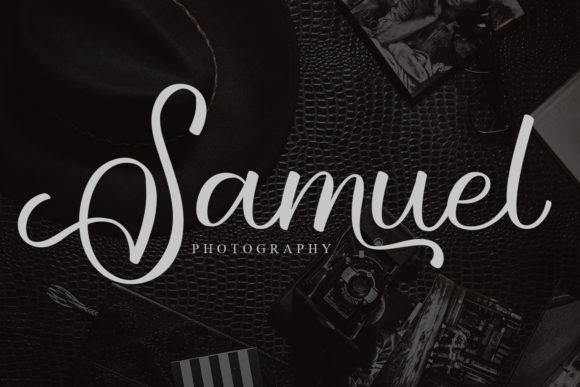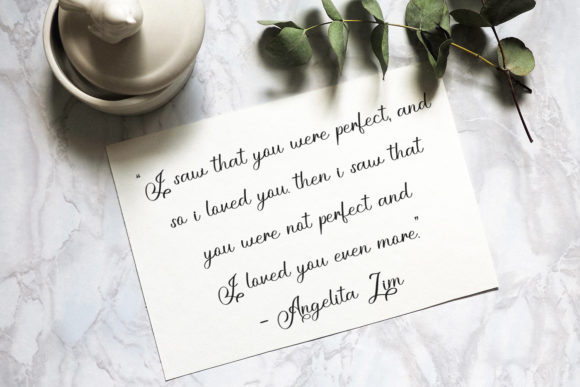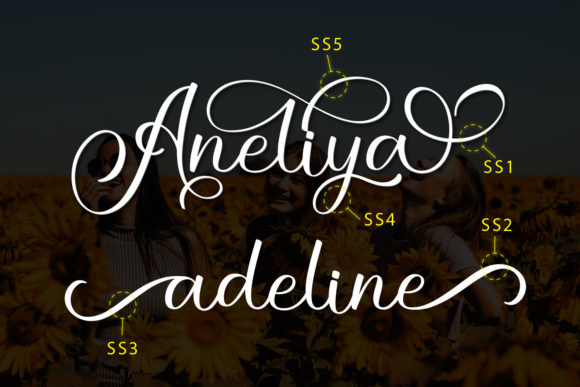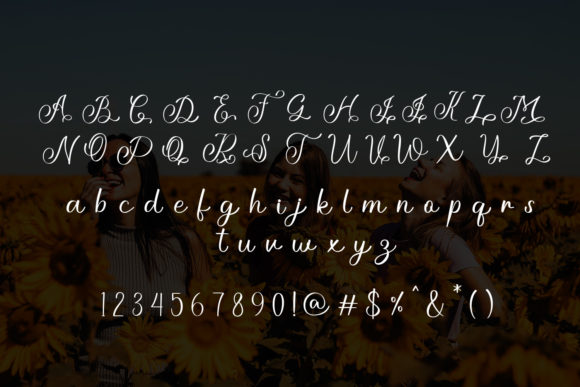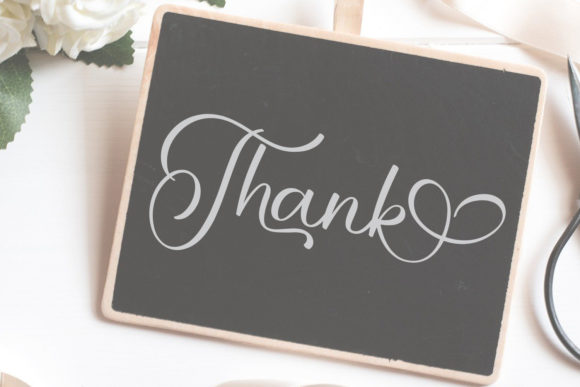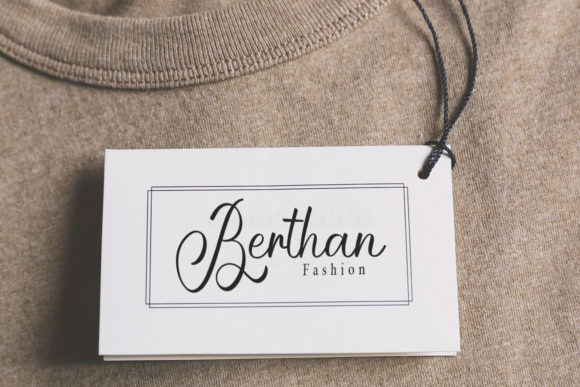
About Aneliya Font
Introducing Aneliya, a beautiful and light handwritten font that brings a unique and stunning impact to your design projects. With its delicate and graceful style, Aneliya is perfect for adding a touch of luxury and sophistication to your creations.
Aneliya captures the essence of elegance with its fine and intricate letterforms. Each character is carefully crafted to exude a sense of beauty and grace. The smooth and flowing strokes give the font a sense of movement and fluidity, creating a visually pleasing aesthetic.
The unique feel of Aneliya sets it apart from other fonts, making it a perfect choice for projects that require a touch of exclusivity and luxury. Whether you’re designing wedding invitations, branding materials, logos, packaging, or any other creative project, Aneliya will elevate your designs and leave a lasting impression.
One of the standout features of Aneliya is its PUA encoding, which allows you to access all the glyphs and swashes with ease. This means you have the freedom to customize and enhance your designs by incorporating alternate characters, ligatures, and decorative elements. The additional options provided by Aneliya’s extensive character set allow you to create unique and personalized compositions.
The versatility of Aneliya makes it suitable for various design themes and purposes. Its light and airy appearance make it an excellent choice for projects that require a subtle and sophisticated touch. From wedding stationery to fashion branding, from editorial design to social media graphics, Aneliya can adapt to a wide range of design applications.
Furthermore, Aneliya ensures legibility and readability, even in smaller sizes or when used in intricate designs. The well-spaced characters and balanced letterforms guarantee that your text remains clear and easily comprehensible.
In summary, Aneliya is a beautiful and light handwritten font that adds a unique and stunning impact to your design projects. With its luxury spark and PUA encoding, you have the freedom to customize your designs and create truly remarkable compositions. Whether you’re working on wedding invitations, branding materials, logos, or any other creative project, Aneliya will bring an air of elegance and sophistication to your designs.